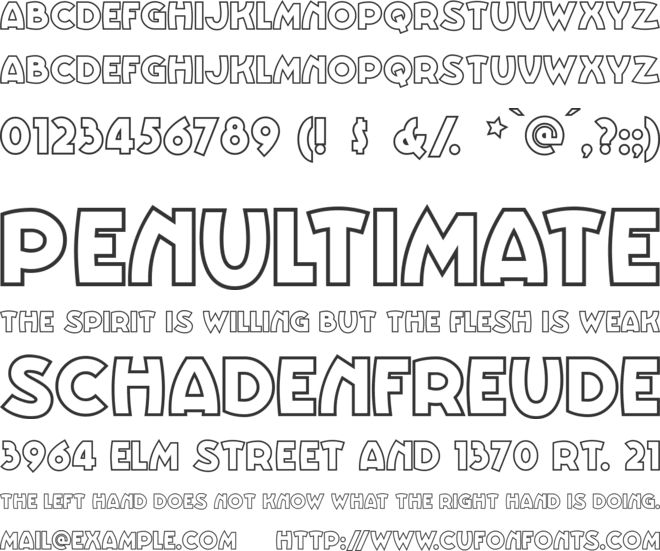
Vinnie Boom Bah NF Font
A round, rollicking fun outline font, based on 1950 poster lettering for Cinzano Spumante by Nico Eder. Named after Rodney Daingerfield’s fictitious accountant, and not to be confused with Sis Boom Bah of Pogo fame.